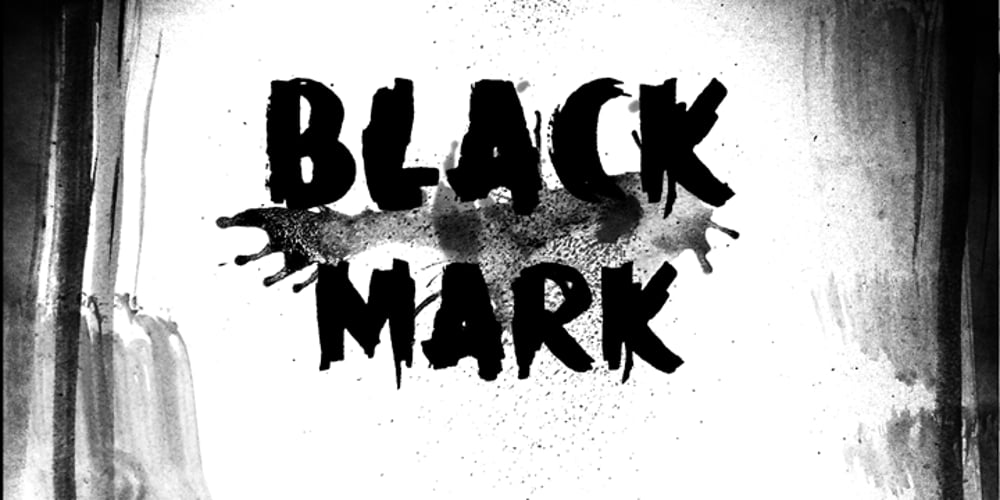
Black Mark Font Family was designed by David Kerkhoff and published by Hanoded. Black Mark contains 2 styles and family package options. Black Mark is a fat, heavy, grunge-to-the-max marker font. It comes with alternates (calt & salt).